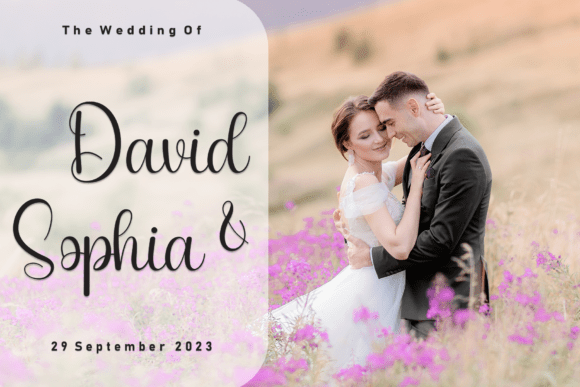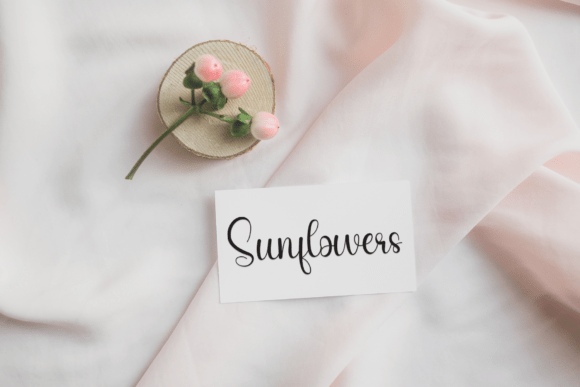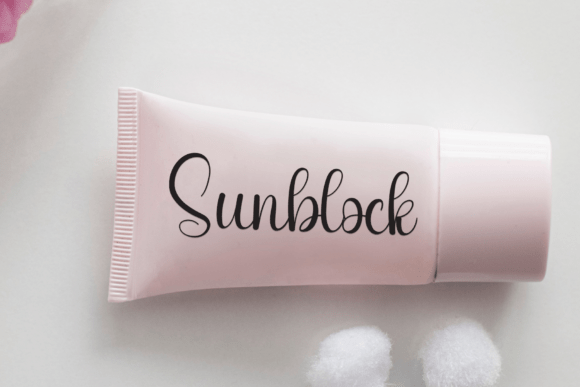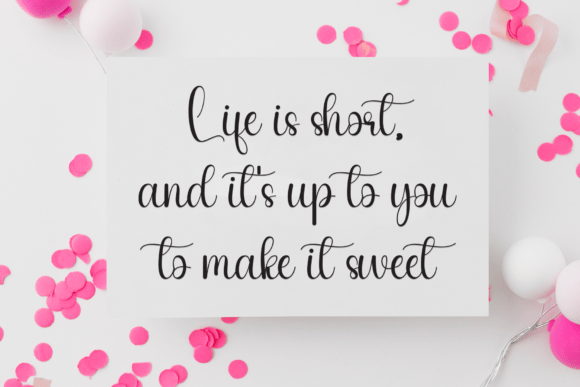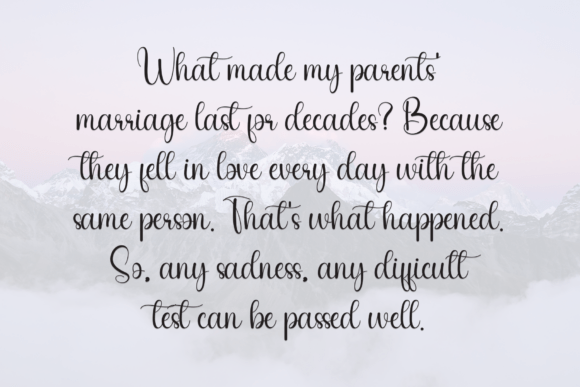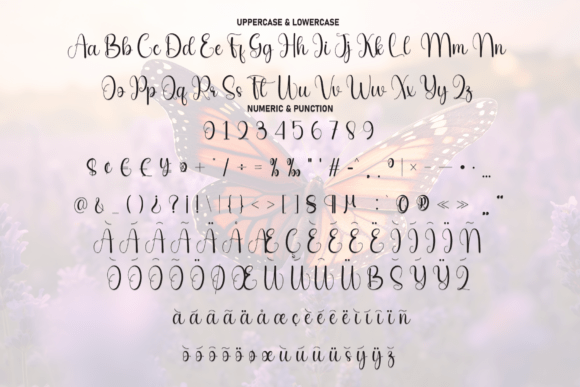
Take Your Designs to New Heights with the Butterfly Font
Have you ever been stuck on a project, staring at a blank page, and then suddenly, a spark of creativity hits? For me, it was a warm summer afternoon, surrounded by blooming flowers, and the gentle hum of butterflies. That’s when I fell in love with the Butterfly Font – a stunning handwritten script that captures the essence of renewal and beauty.
The Butterfly Font is a delicate yet powerful tool for designers, perfect for adding a touch of elegance and charm to invitations, branding, and seasonal designs. Its flowing strokes and gentle curves evoke a sense of freshness and sophistication, making it an invaluable asset for any creative project. Whether you’re a seasoned pro or just starting out, the Butterfly Font is sure to bring a soft, personal touch and uplifting feel to your work.
Key Features of Butterfly Font
- Font Family: Butterfly is a unique, handwritten font family designed to resemble handwritten text.
- Font Size: Supports a wide range of font sizes, from 8pt to 72pt, making it suitable for various applications, including digital and print media.
- Unique Characteristics: Features a distinctive, flowing script style with varied line widths, giving it a personal and creative touch.
Designer Review: Butterfly Font
Overall, I found the Butterfly Font to be a visually stunning choice for any project. It’s ✨ playful, whimsical, and adds a touch of elegance to any text it’s paired with.
One of the standout features of this font is its ✨ versatility. It can be used for a wide range of applications, from children’s books to wedding invitations, and it never fails to impress.
- ✨ Elegant and whimsical feel
- ✨ Versatile and suitable for various applications
- ✨ Unique and eye-catching design
- ⚠️ Limited legibility at smaller font sizes
- ⚠️ Not ideal for body text in large blocks of text
- ⚠️ May not be suitable for formal or professional applications
While the Butterfly Font has its limitations, it’s still a great choice for projects where you want to add a touch of personality and whimsy. With proper use and pairing, it can be a truly stunning addition to any design.
The Butterfly Font is ideal for:
- Whimsical and playful designs
For optimal results, use the Butterfly Font in combination with watercolor or hand-drawn elements to create a unique and eye-catching design.
Alternatives to Butterfly Font for Designers
Great Vibes Font is a beautiful, elegant script font ideal for creating a sophisticated and luxurious feel. It features a flowing, cursive design that is perfect for titles, headings, and invitations. When to use: wedding invitations, luxury branding, high-end advertising.
Compared to Butterfly Font, Great Vibes Font has a more refined and polished look, making it suitable for formal events and high-end branding. While Butterfly Font is playful and whimsical, Great Vibes Font is elegant and sophisticated.
Carolyna Pro Font is a modern, elegant script font designed for creating a sense of luxury and sophistication. It features a flowing, cursive design with a touch of whimsy, making it perfect for titles, headings, and branding. When to use: luxury branding, high-end advertising, fashion magazines.
Compared to Butterfly Font, Carolyna Pro Font has a more modern and sleek look, making it suitable for contemporary branding and advertising. While Butterfly Font is playful and feminine, Carolyna Pro Font is elegant and sophisticated with a touch of modernity.